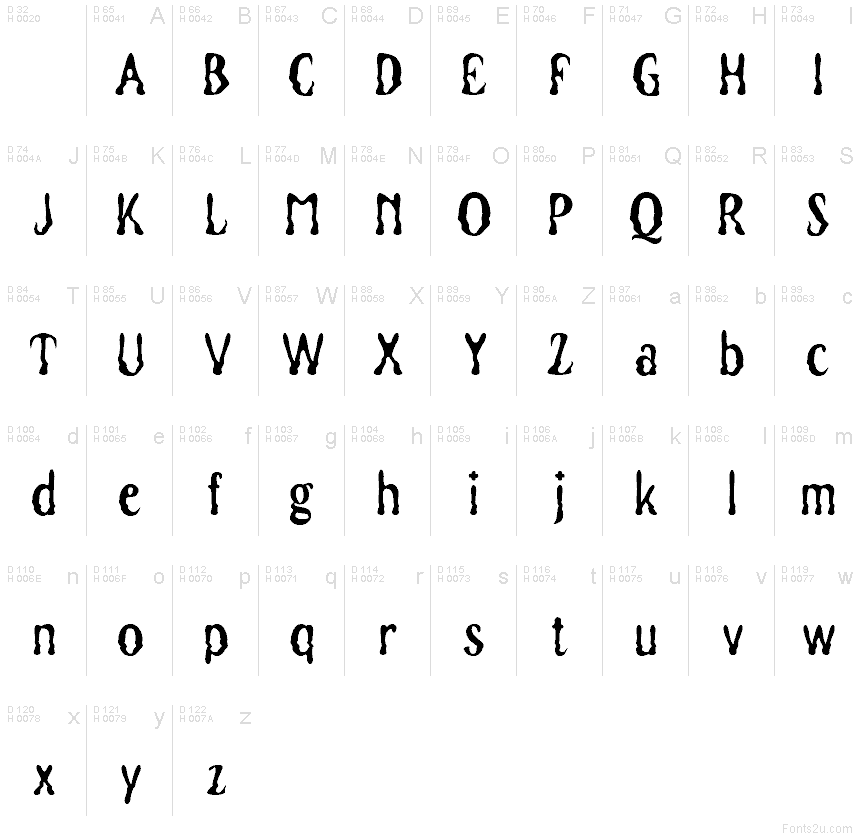
CSSpareDrawn-Regular Demo
CS Spare Drawn font by Craft Supply Co. is a free eroded display font. Part of the CS Spare family, it leans into inky, time-worn texture—strokes swell and taper like brushwork left to dry, with chipped edges and soft, scalloped counters. The rhythm is lively but legible, giving headlines a gritty, hand-drawn presence that feels found, not fabricated.
This free font shines on horror posters, vintage labels, band merch, escape room branding, Halloween promos, game titles, and moody book covers. Its eroded surface adds instant atmosphere without extra effects. Using CS Spare Drawn, set large for maximum grain, and pair with a clean geometric sans for body copy to let the texture breathe and do the storytelling.
CS Spare Drawn Demo